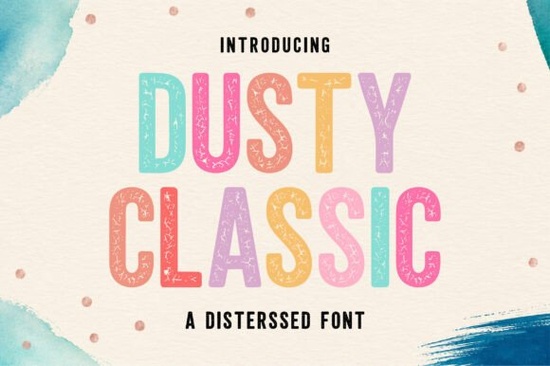
If you're looking for a display font that feels handmade but still works well in real projects like t-shirt designs, greeting cards, or small-batch packaging Dusty Classic Font is worth your time. It’s not overly rough or hard to read, and it doesn’t try too hard to be “vintage.” Instead, it offers a gentle, weathered charm: tall, clean letterforms with just enough texture to feel authentic not gimmicky.
What makes Dusty Classic different from other distressed fonts?
Many distressed or grunge-style fonts go too far too much noise, too much unevenness, or too much contrast between thick and thin strokes. That can make them tricky to use at smaller sizes or in layered designs. Dusty Classic avoids those pitfalls. Its subtle wear is consistent and intentional, like ink that’s slightly faded on an old poster not scribbled over or scraped off.
You’ll notice the spacing is generous, the x-height is friendly, and lowercase letters sit comfortably next to caps without clashing. That balance helps it work across mediums: screen, print, embroidery digitizing (when used at larger sizes), and even vinyl cutting, as long as you’re not pushing below 24pt for body text.
Where does it fit in your design workflow?
Think of Dusty Classic as your go-to when you want warmth without sacrificing clarity. It’s especially useful if you’re designing for audiences who respond to sincerity over polish think indie bakeries, handmade soap labels, baby shower invites, or classroom bulletin boards.
It pairs naturally with simpler sans-serifs (like Montserrat or Open Sans) for contrast, or with other hand-drawn styles if you’re building a full brand kit. For example, you might use Ligra Font for bold headlines and Dusty Classic for subheads or quotes it shares that same grounded, approachable energy.
And because it’s a display font not meant for paragraphs you’ll want to reserve it for short, impactful text: logos, product names, social media banners, or craft project titles. That’s where its personality shines best.
How does it compare to similar fonts on Creative Fabrica?
Like Vanilla Cream Font, Dusty Classic leans into soft nostalgia but Vanilla Cream has more rounded, almost chalk-like edges, while Dusty Classic keeps sharper terminals and a more structured rhythm. If your project needs gentler curves, go there. If you want quiet confidence with a hint of age, stick with Dusty Classic.
Magic Bright Font is bolder and more playful great for kids’ party supplies or sticker sheets whereas Dusty Classic suits quieter, thoughtful moments: a handwritten note on a gift tag, a framed quote in a nursery, or a small-run zine cover.
Compared to Bold Limited Distressed Font, Dusty Classic is less aggressive and more versatile across color palettes. Bold Limited thrives with high-contrast black-and-white; Dusty Classic works just as well in muted tones or pastel backgrounds.
And unlike Groovy Style Font, which leans into 70s flair and exaggerated swashes, Dusty Classic stays grounded no extra flourishes, no forced retro cues. It’s vintage-adjacent, not costume-y.
Real uses that actually work
- T-shirts & tote bags: Works best on light fabrics or with a soft underbase. Avoid fine details in large all-caps blocks unless you’re printing with high-resolution DTG.
- Invitations & stationery: Pair with a neutral serif for body text Dusty Classic handles names, dates, and headings beautifully.
- Social graphics: Stands out in Instagram story text overlays or Pinterest pins, especially with a slight drop shadow or soft background shape behind it.
- Craft templates: Great for printable wall art, scrapbook kits, or SVG bundles its texture holds up well when scaled and converted.
One thing to keep in mind: Dusty Classic includes standard Latin characters and basic punctuation, but no extended language support (like Cyrillic or Vietnamese diacritics). So if you’re designing for multilingual audiences, double-check coverage before committing to a full layout.